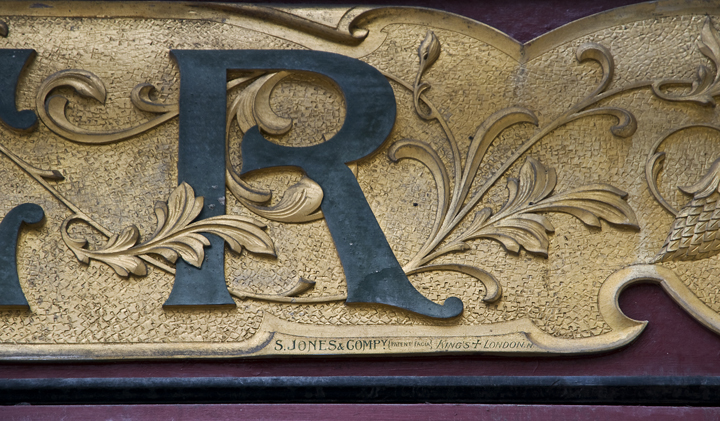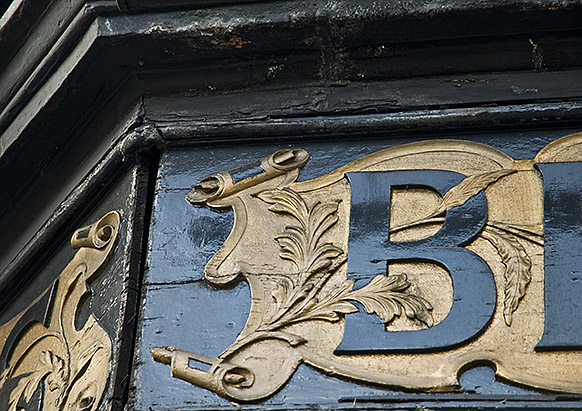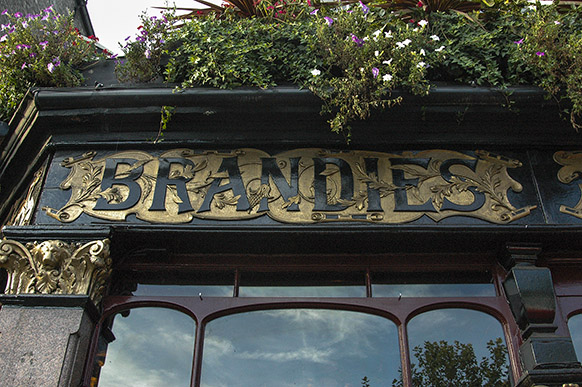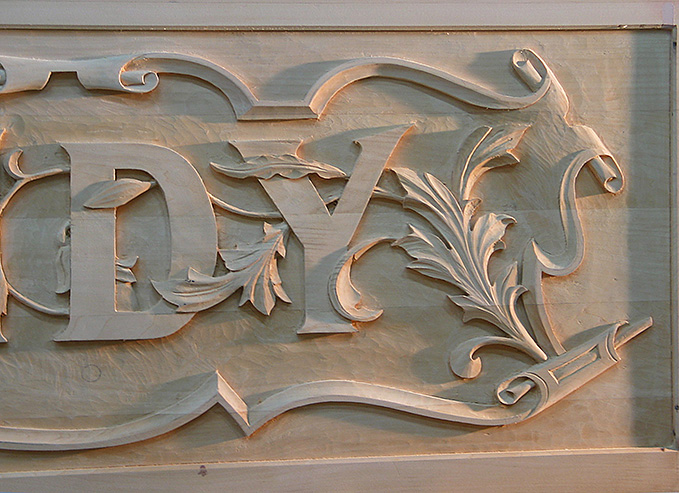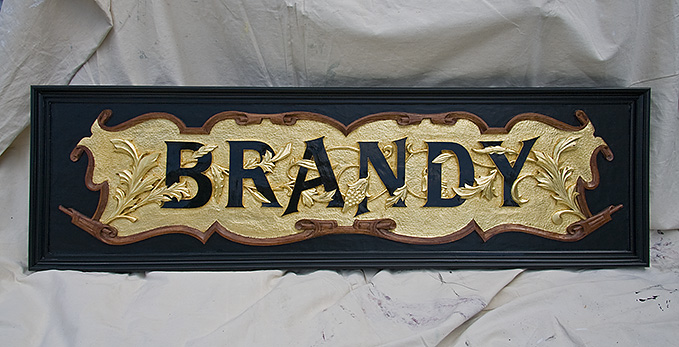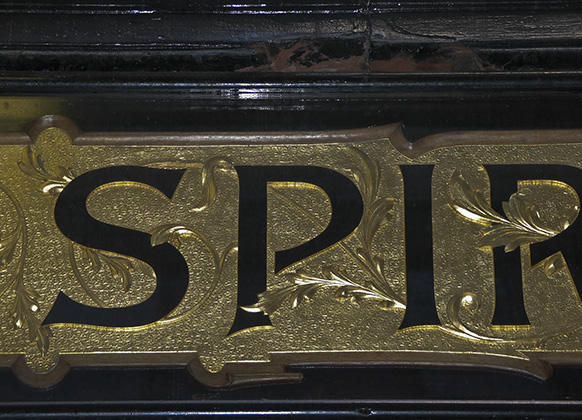
I always hesitate to post my own work but in the spirit of this site and in memory of the amazing work that once decorated the Black Lion Pub in London I thought I'd share what I tried a few years ago as the work of these craftsmen was no small influence on me.
It was a winter lull at the shop and I had a few planks of basswood lying around and was into trying out an "almost" copy of one of the signs from The Black Lion. After studying these and the ones at the Salisbury (in near perfect condition) by S. Jones and Company in Kings Cross London. I am almost certain that they were using some sort of router on a gantry much like a computer driven machine. I was using hand routers and ran into the problem of not having the nice even background like the examples I'd seen and am going to include a few of the photos I used as reference.
I abbreviated mine to Brandy as I only had 6ft planks and this was intended to be just for the fun of it. On the one from The Salisbury (spirits) you can see what I thought was a punched background and made a couple for this purpose from hardened steel. You can see on the original "B" a crack going through the background and the letter which tells me this was likely a single piece of wood rather than cut letters applied....besides to do otherwise would require an enormous bandsaw! Anywho...there's a little of my investigational ramblings.
Great Stuff, Mr Bernhardt!
Did the punched background work out? With punched wood, how much do you worry about the crushed wood expanding over time?
Hey don't feel bad about posting your work. I certainly can't imagine that I am the only one on the forum who enjoys seeing your stuff. Keep it coming
So the overall size of your piece is about 6 foot by 18 inches?
Hi Gents...I've seen some old pieces with punched backgrounds before and they seem to be in good condition. There are quite a few available from woodworking supply places but am pretty sure I made this one. Have a picture from Peter Devine's which I believe is the same punch.
I have another in mind for the next time I'm prepared for a couple of hours of torture (it's noisy) on anything of substantial size. Brandy was only a 2x6' or so but the Devine's was closer to 30'
I am not worthy of this post.
This is high class and what you made Doug is magnificent!
Please show everything you got.
I'm going to make a point of trying to be more forth coming...thanx for that Erik. It's easy to just dismiss ones own work when I see the quality of the other posts here and on Facebook. Also a certain "shyness" on my side is at play.
It's alway a pleasure to see what your up to. It came out great !